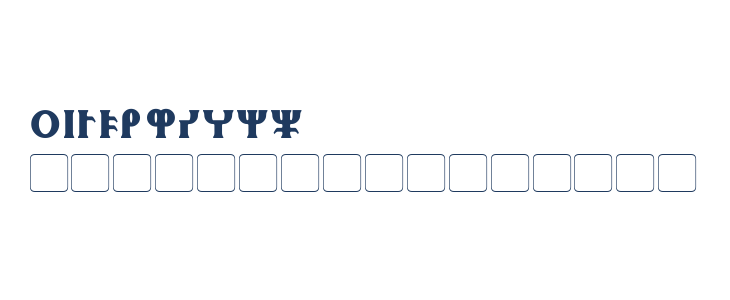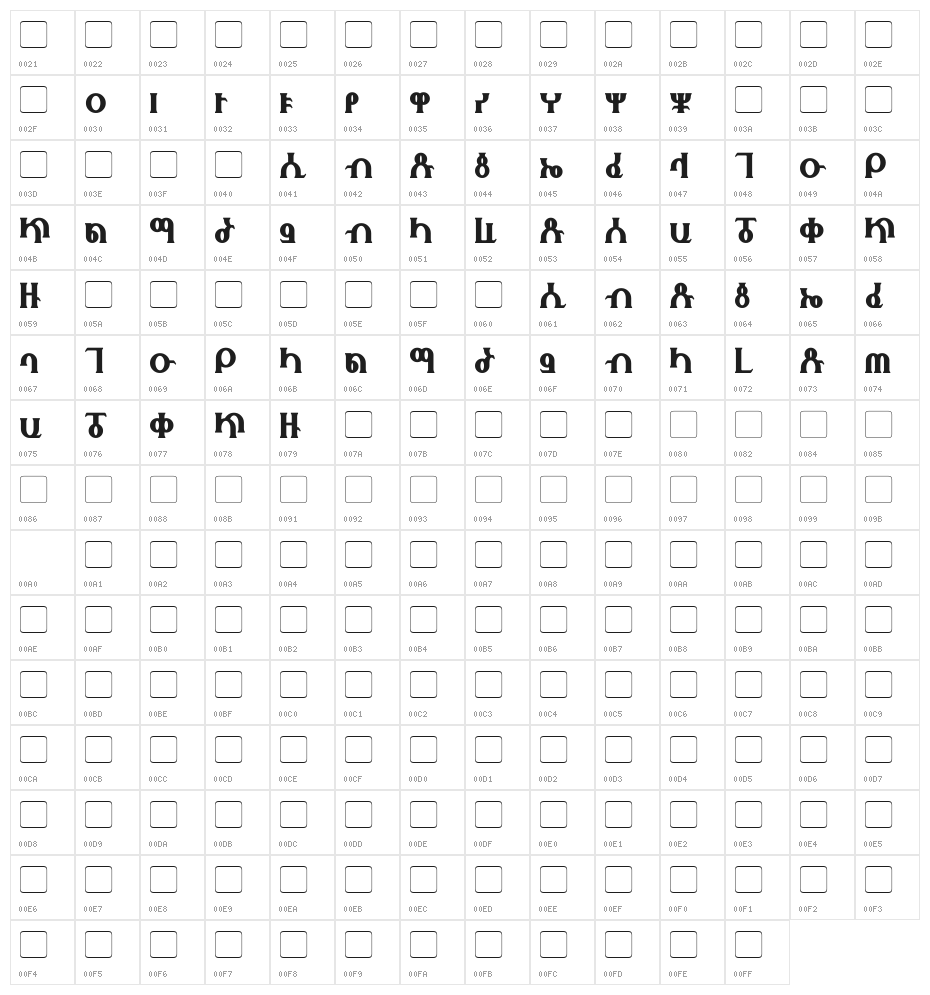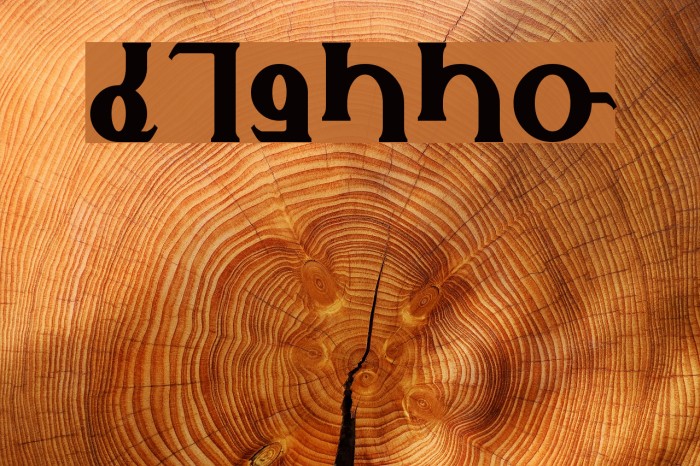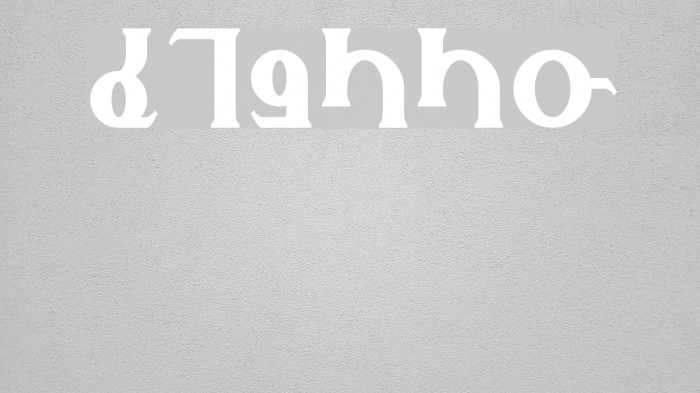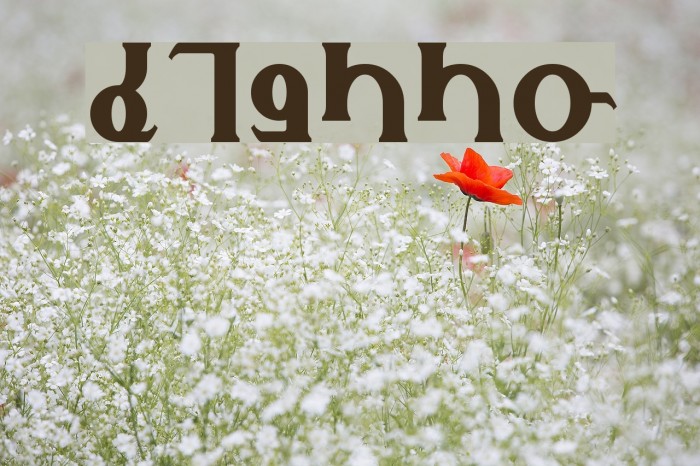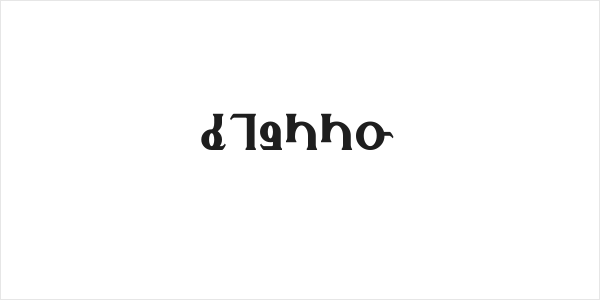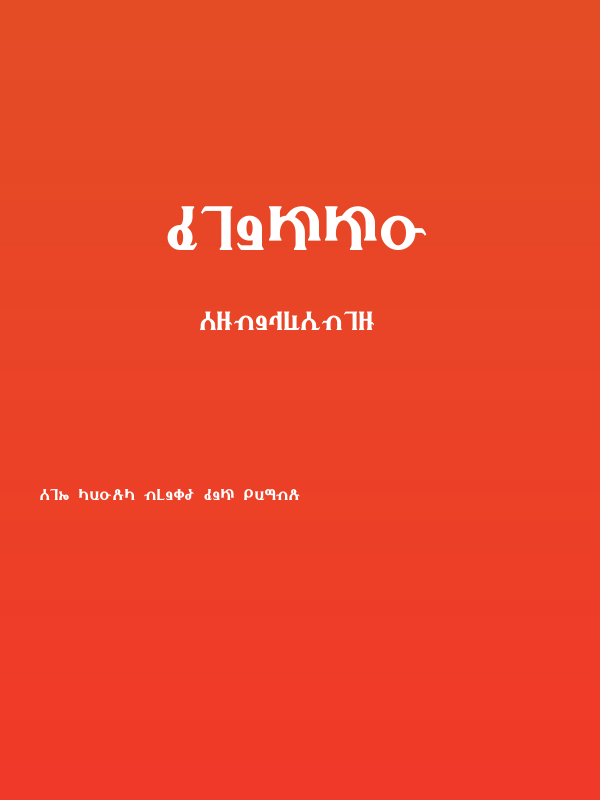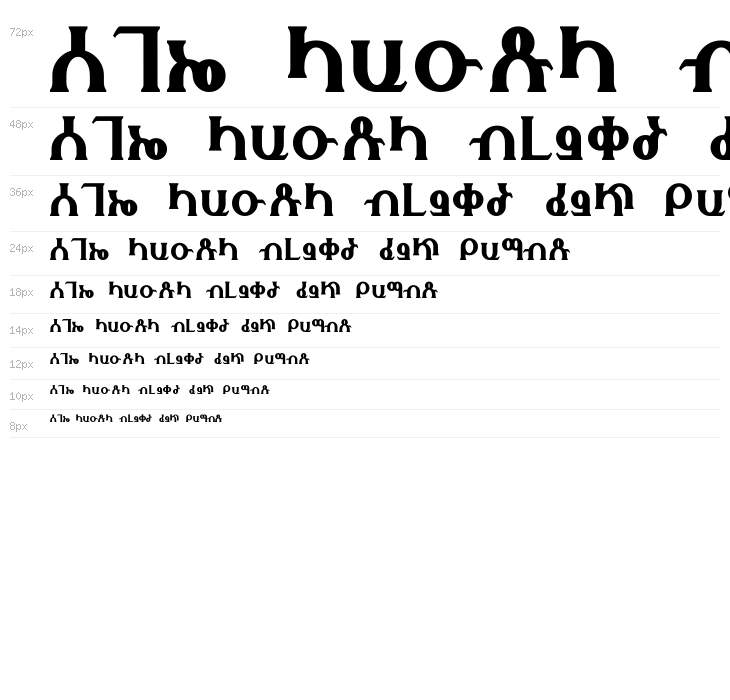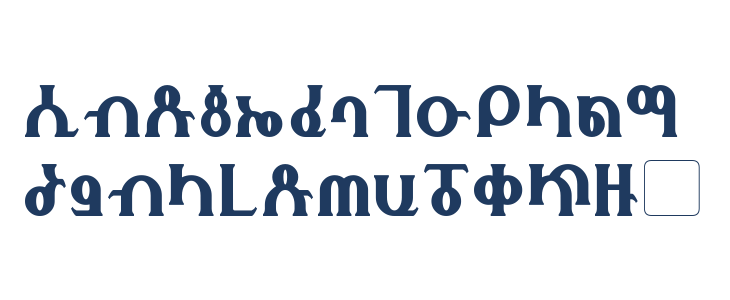
Fhokki Font
Fhokki Description
This font features a unique and decorative style, characterized by its bold and intricate letterforms. The characters exhibit a high level of ornamentation, with elaborate curves and flourishes that give it a distinct and artistic appearance. The font's overall design is reminiscent of traditional calligraphy, yet it maintains a modern twist with its bold strokes and dynamic shapes. The characters are well-balanced, with consistent weight and proportion, making it suitable for eye-catching designs. Its decorative nature makes it ideal for projects that require a touch of elegance and sophistication.